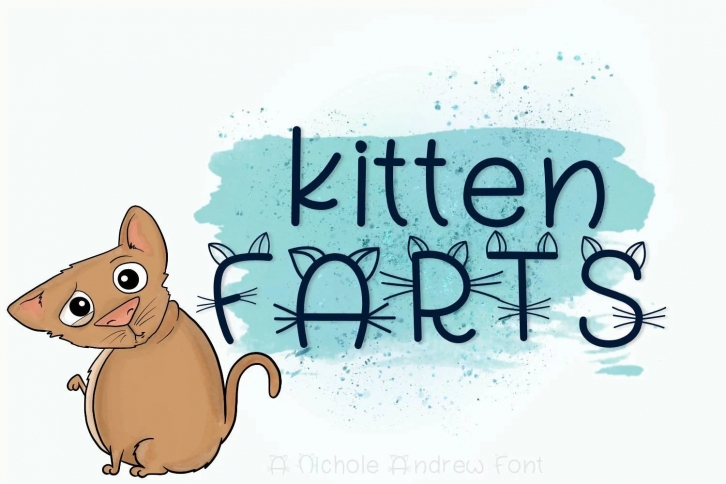
Kitten Farts is a fun, meowy handwritten font. Kitten Farts features uppercase letters with ears and whiskers, to give a kitten feel! Mix with lowercase for a fun look or you could use the uppercase alone for monograms! Kitten Farts makes fun T-Shirts, Decals, and so much more!